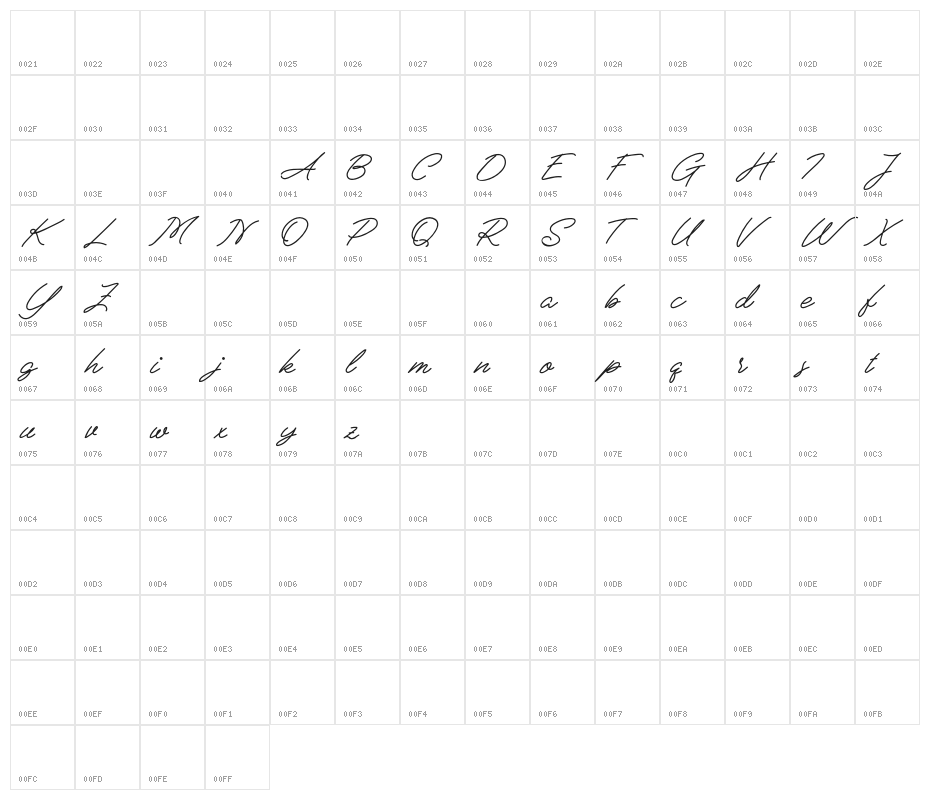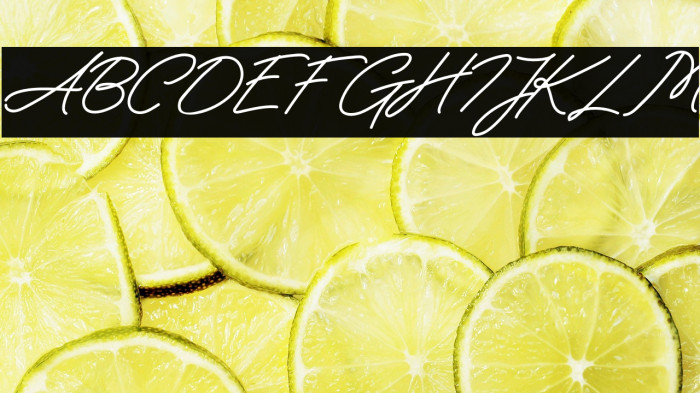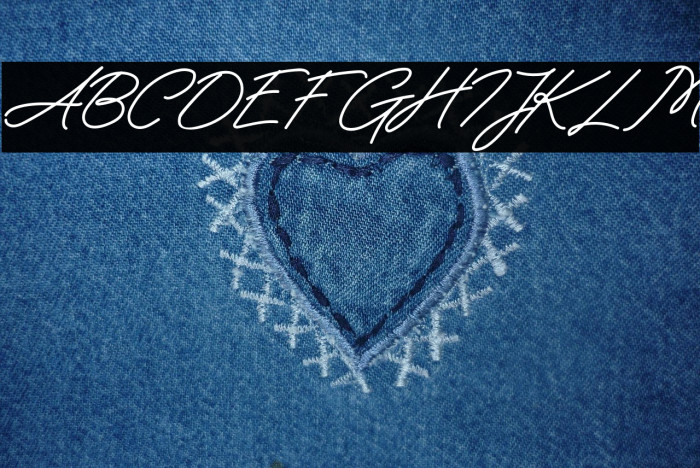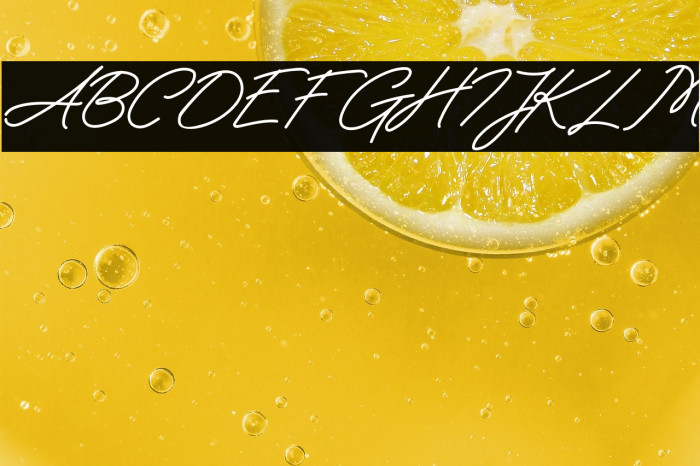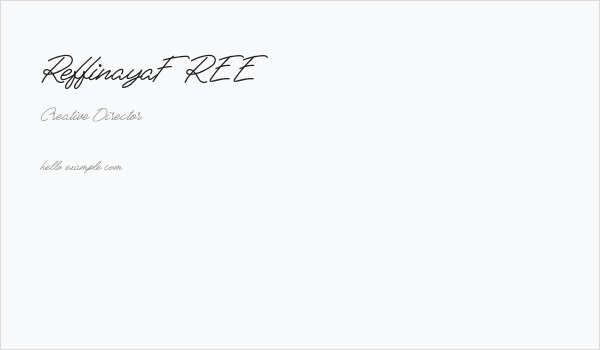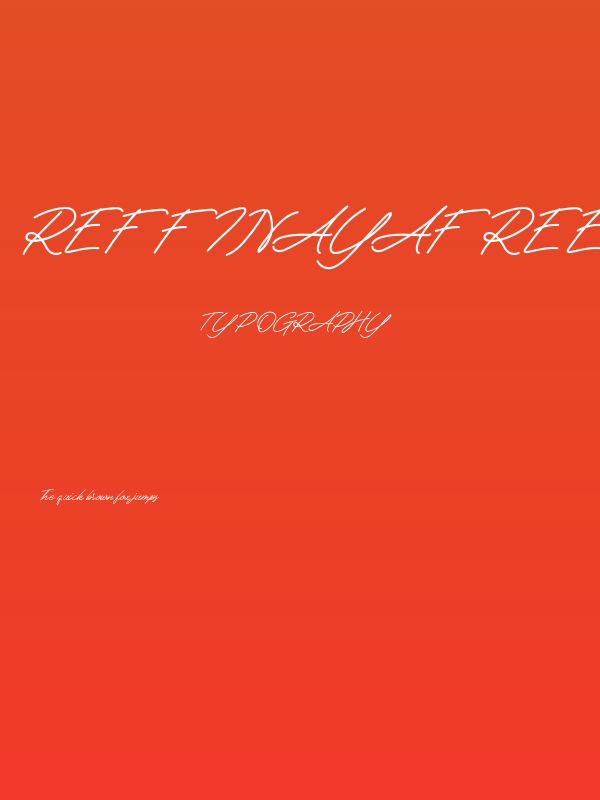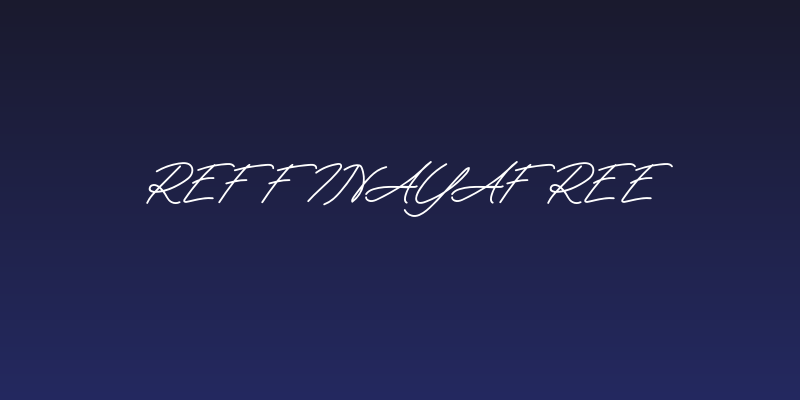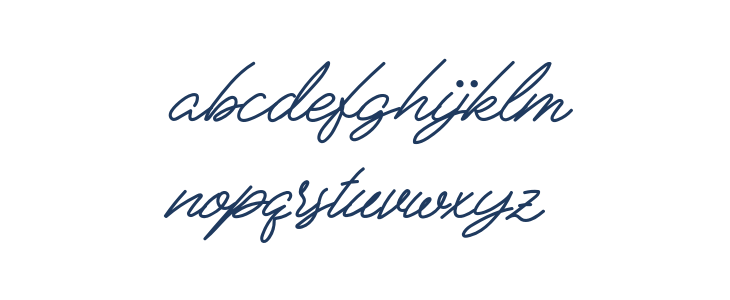
ReffinayaFREE Font
ReffinayaFREE Description
This elegant script font features a flowing, cursive style with smooth, connected strokes that mimic natural handwriting. The uppercase letters are slightly larger and more ornate, while the lowercase letters maintain a consistent, fluid motion. The font's design is characterized by its graceful curves and loops, giving it a sophisticated and artistic appearance. The overall look is both classic and modern, making it versatile for various design applications. Its legibility is enhanced by the moderate spacing between characters, ensuring clarity while maintaining its decorative appeal.
| Overall Style | Elegant, Artistic |
| Proposed Projects | Ideal for wedding invitations, greeting cards, branding, and elegant logo designs. |